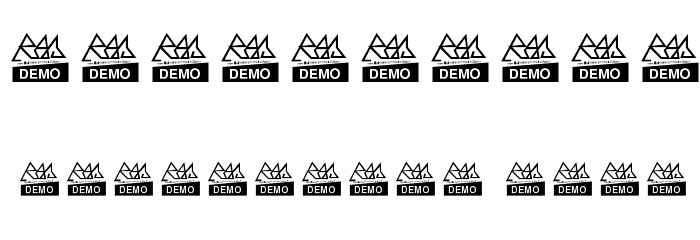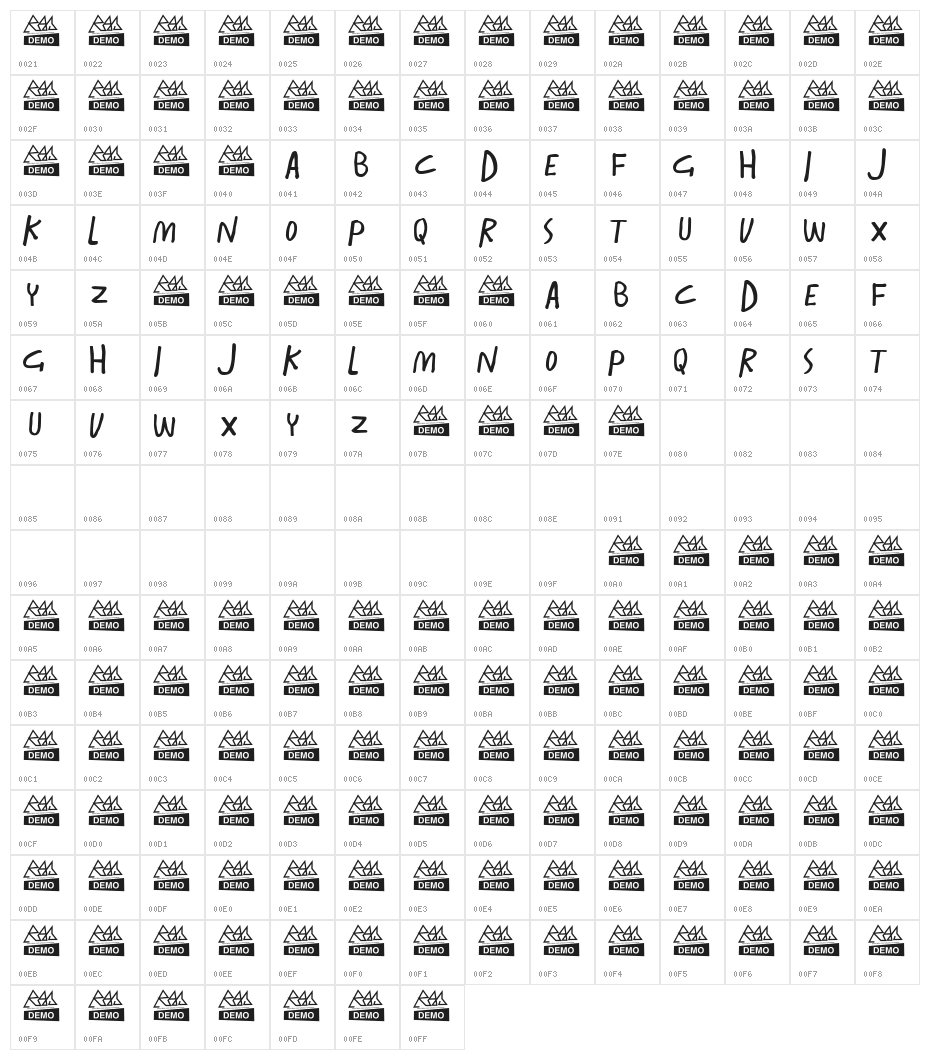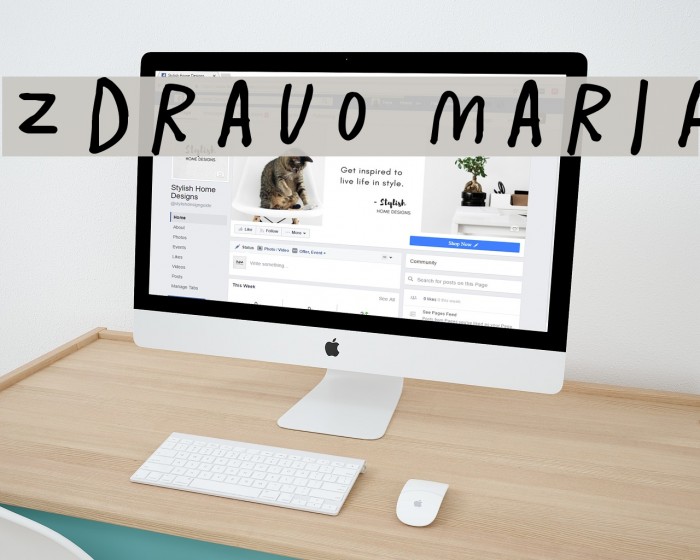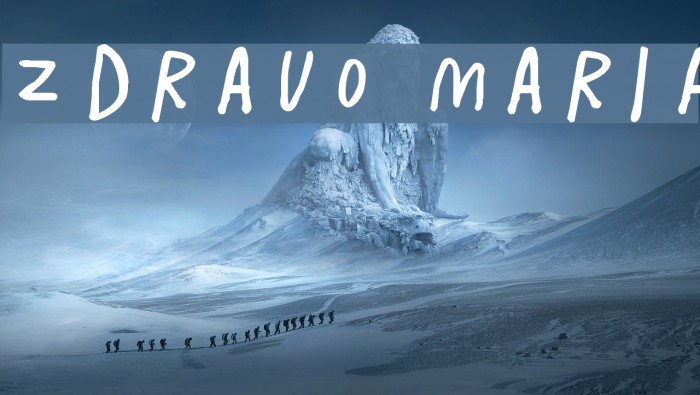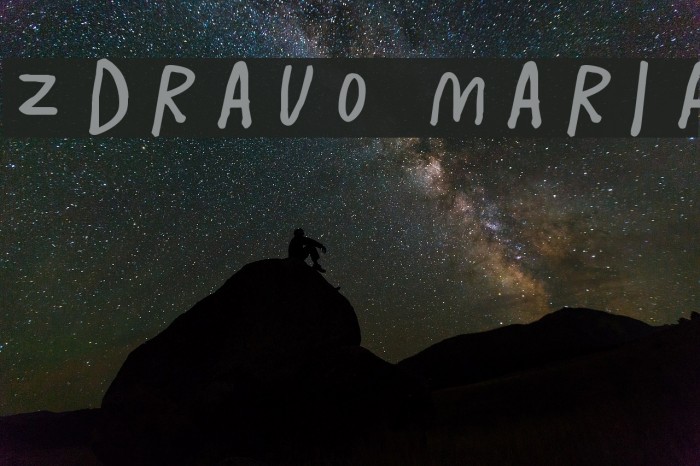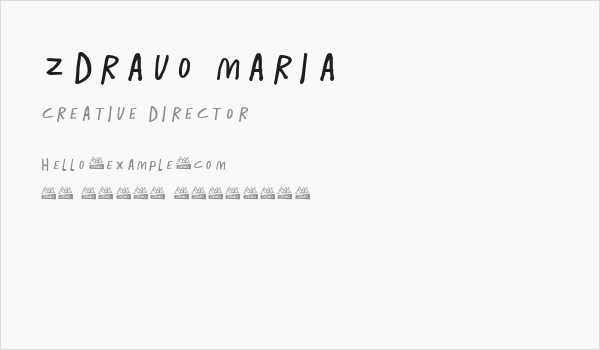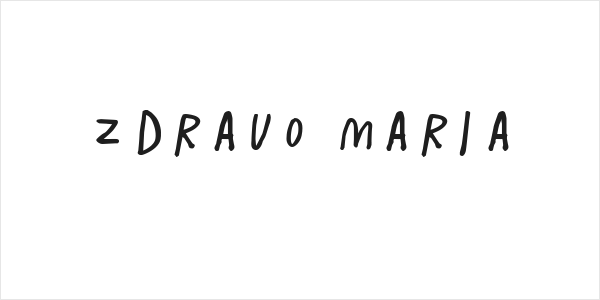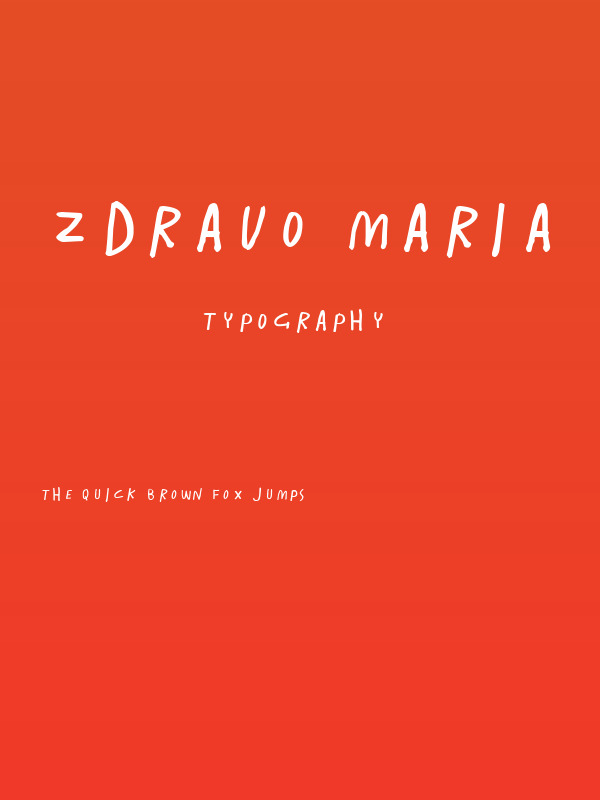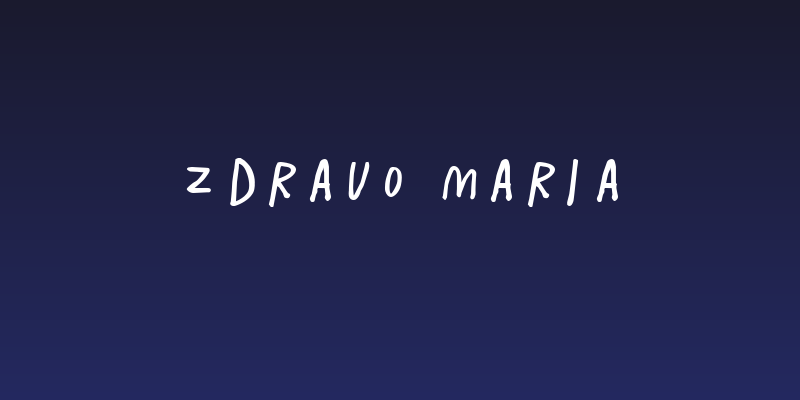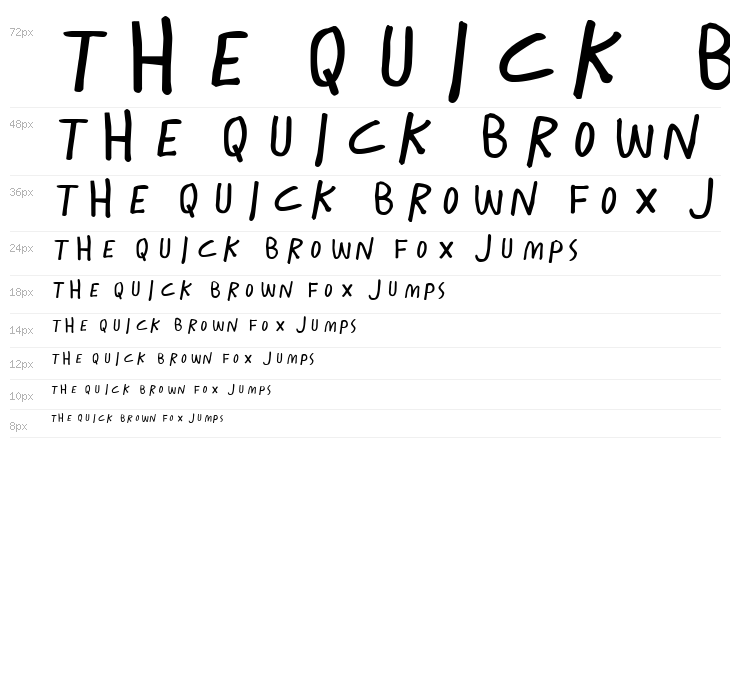
ZDRAVO MARIA Font
ZDRAVO MARIA Description
This font features a playful and casual handwritten style, characterized by its irregular strokes and slightly tilted letters. The uppercase and lowercase letters maintain a consistent flow, giving a sense of movement and energy. The strokes vary in thickness, adding a dynamic and lively feel. The numbers and special characters follow the same whimsical style, making the font suitable for informal and creative projects. Its unique appearance makes it stand out, while still being legible and approachable.
Overall StyleCasual
Use CaseHeadlines, Logos, Informal Text
Proposed ProjectsIdeal for greeting cards, children's books, casual invitations, and creative branding.